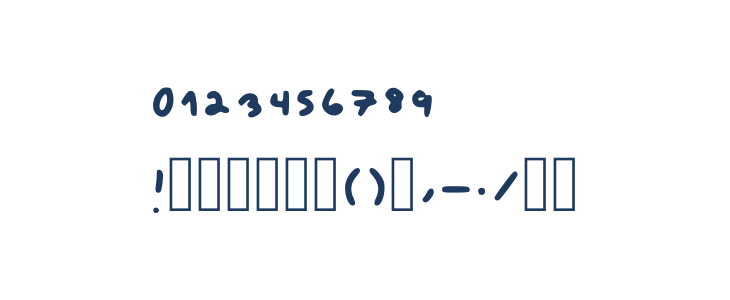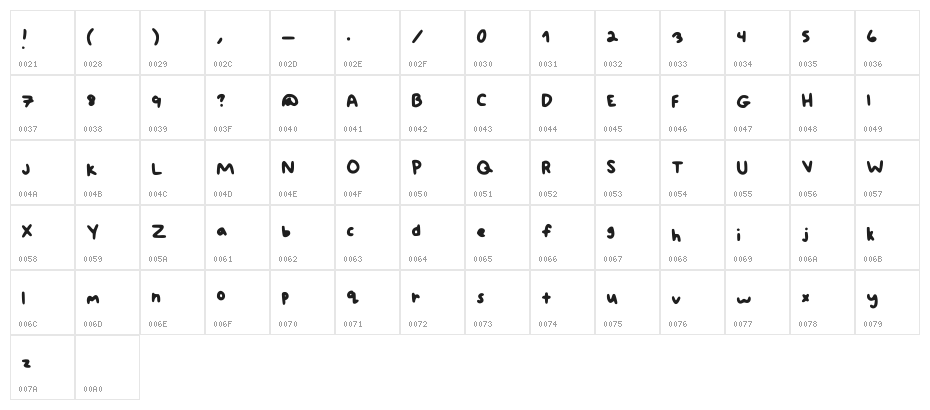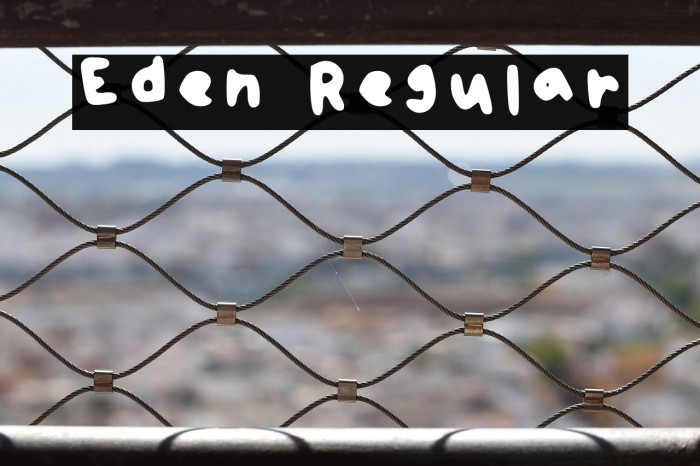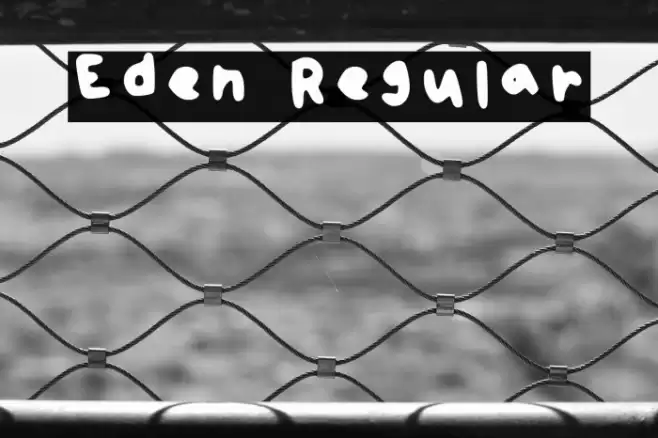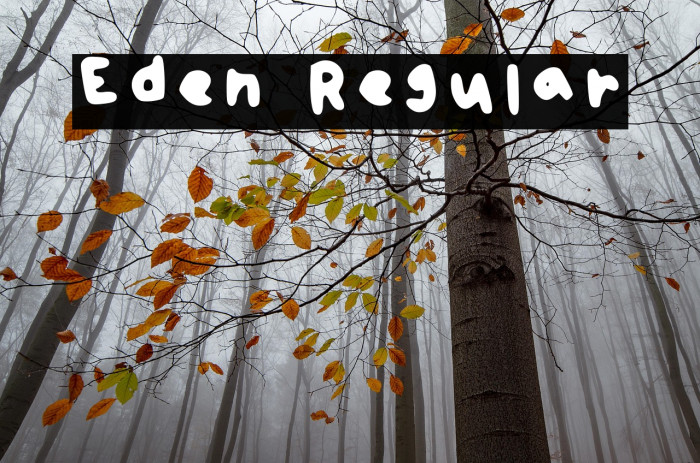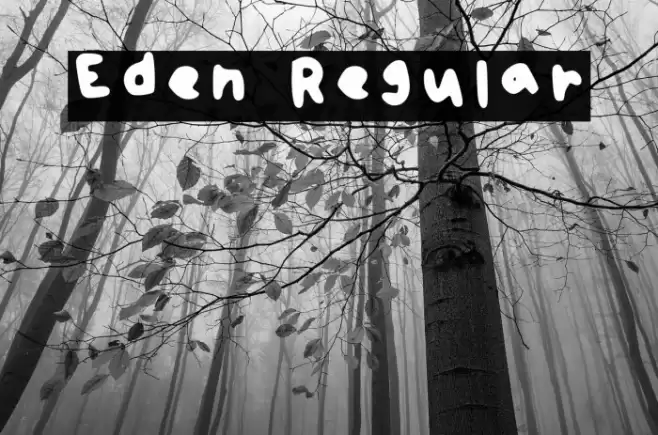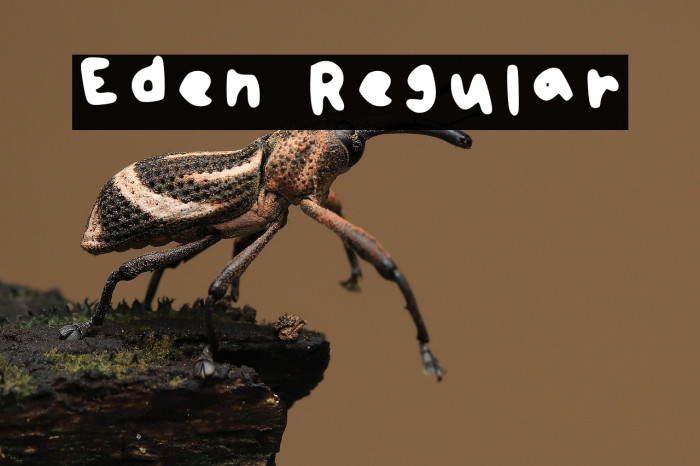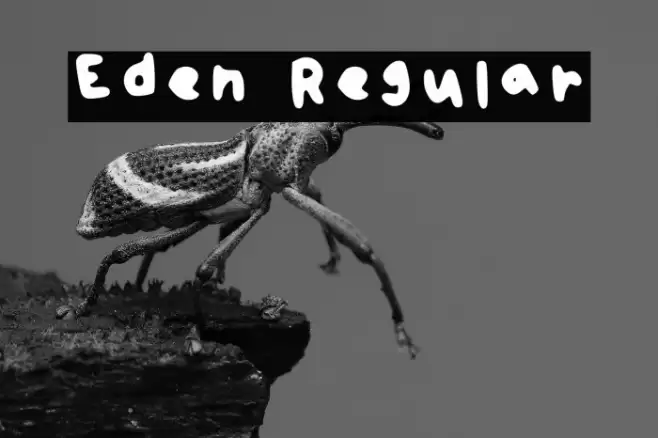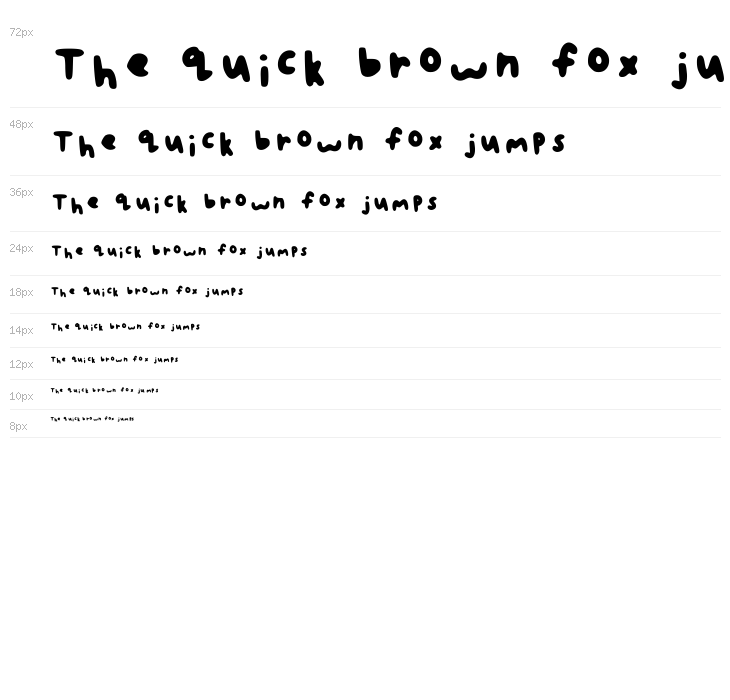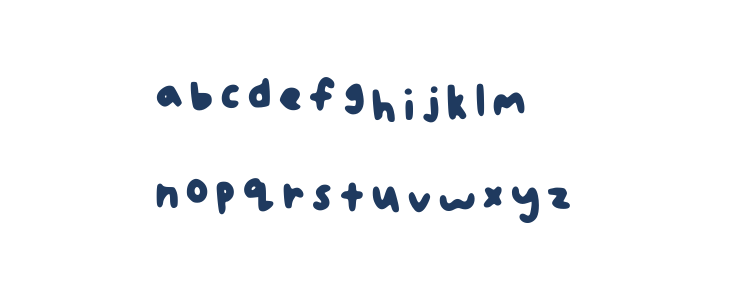
Eden Regular Font
Eden Regular Description
This font features a playful and informal handwritten style, characterized by its rounded and slightly irregular letterforms. The strokes are consistent in thickness, giving it a uniform appearance while maintaining a casual and friendly vibe. The characters are well-spaced, enhancing readability despite the informal design. The font includes both uppercase and lowercase letters, numerals, and a selection of punctuation marks, making it versatile for various uses. Its unique style is perfect for projects that require a personal touch or a more relaxed aesthetic.
| Use Case | Headlines, Informal text, Branding |
| Proposed Projects | Ideal for greeting cards, children's books, casual branding, and social media graphics. |